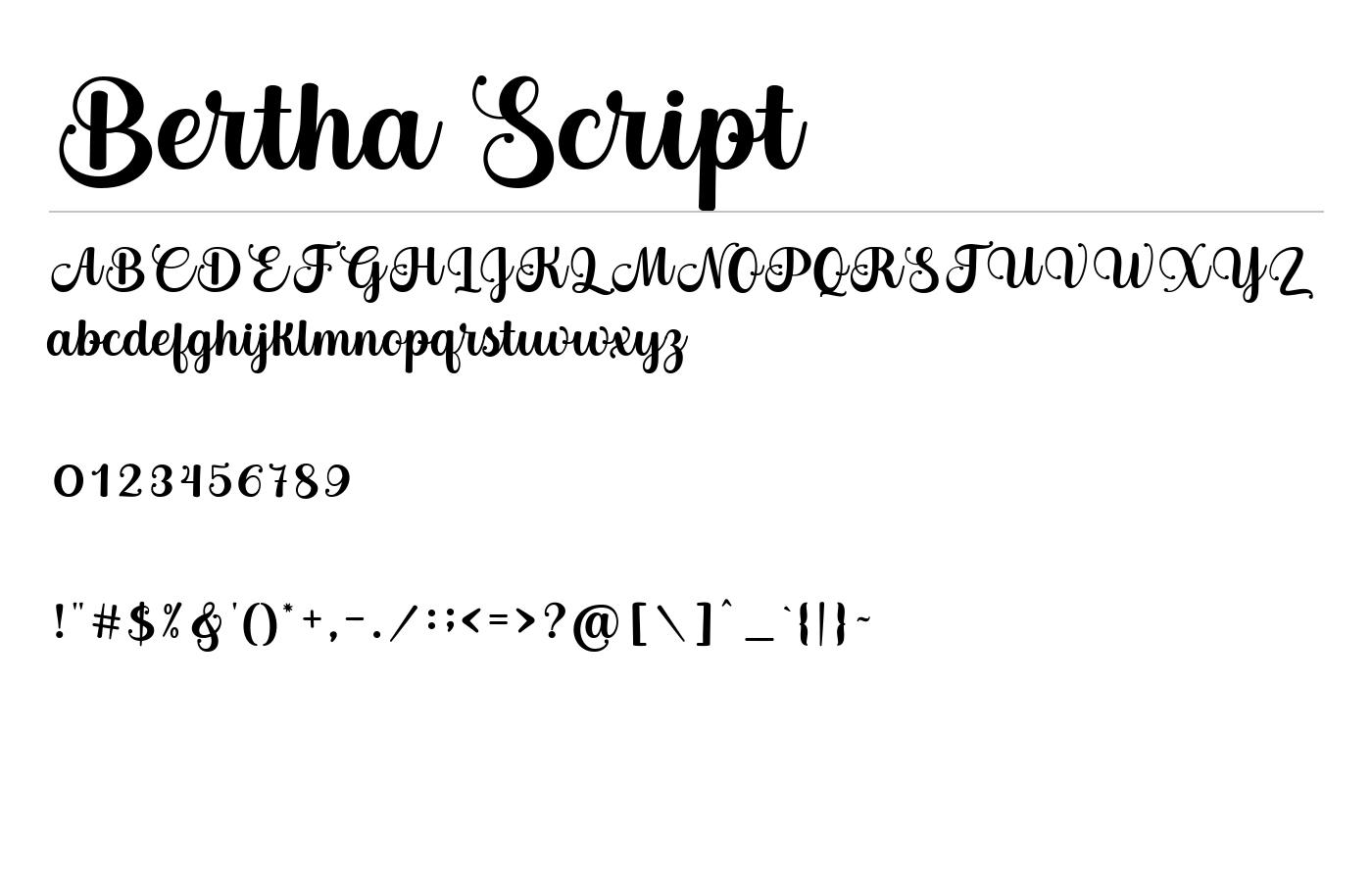
Bertha Script is a stylish and playful script font characterized by its bold yet elegant strokes and decorative curls, giving it a lively and personable feel. With its strong contrast, smooth curves, and distinctive uppercase swashes, it works beautifully for creative branding, logos, invitations, and headlines where a touch of charm and sophistication is desired. This font adds a warm, friendly personality to designs while maintaining clarity and impact.
Bertha Script Font
About Bertha Script Font
| Font family | Bertha Script Font |
| Designer | Romi Rahmadi |